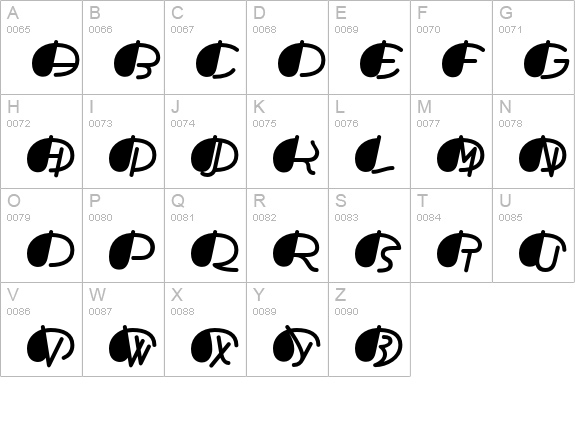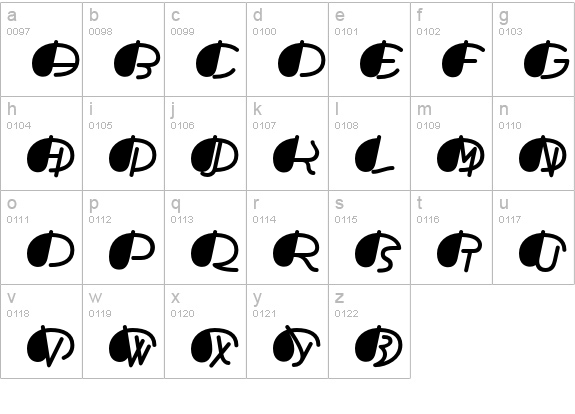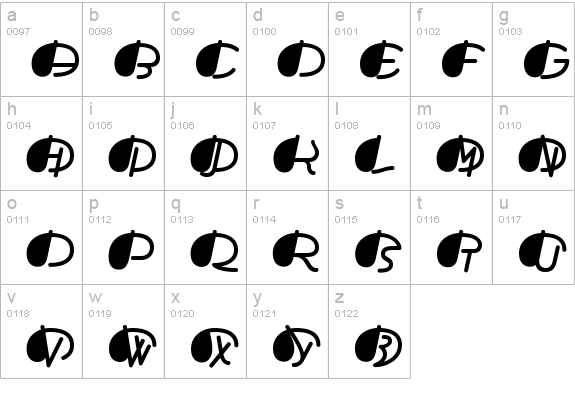
TFAdefabcThree-Solid Font Details
Introducing TFAdefabcThree-Solid, a stunning font that effortlessly combines modernity with elegance. This one-of-a-kind typeface is perfect for those who seek to make a bold statement while maintaining a touch of sophistication. With its clean lines and strong, solid structure, TFAdefabcThree-Solid is guaranteed to captivate any viewer. What sets this font apart is not just its impeccable design, but also the fact that it is freely available to download at FontsMarket.com. Yes, you heard it right! TFAdefabcThree-Solid can be yours without any cost, allowing you to enhance your creative projects without breaking the bank. Whether you're a graphic designer looking to add a unique touch to your branding materials, a web developer in search of a versatile font for your website, or simply an individual seeking to add a touch of elegance to your personal projects, TFAdefabcThree-Solid is the perfect choice. Its versatility allows it to be used in a wide range of applications, from logo designs and advertisements to invitations and social media graphics. The characters of TFAdefabcThree-Solid are meticulously crafted, with each letter exuding a sense of strength and confidence. The boldness of the font makes it easily readable in both print and digital formats, ensuring that your message is conveyed clearly and effectively. But don't just take our word for it - experience the beauty of TFAdefabcThree-Solid for yourself. Head over to FontsMarket.com and download this remarkable font free of charge. Join the ever-growing community of designers and creatives who have fallen in love with TFAdefabcThree-Solid's unique charm. So why wait? Elevate your designs and effortlessly make a lasting impression with TFAdefabcThree-Solid. Download it today and let your creativity flourish.